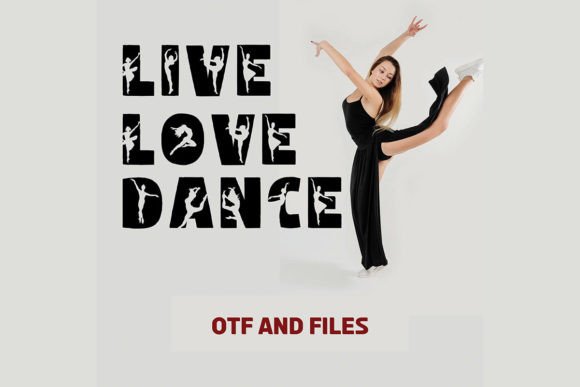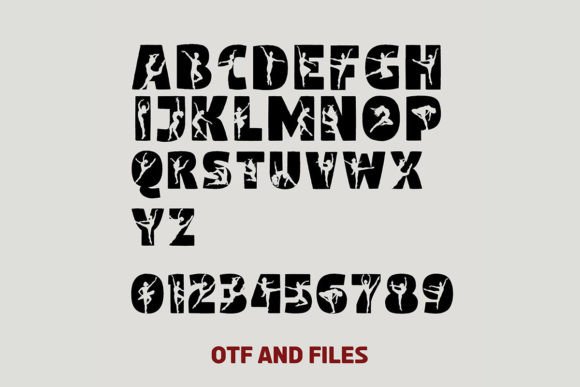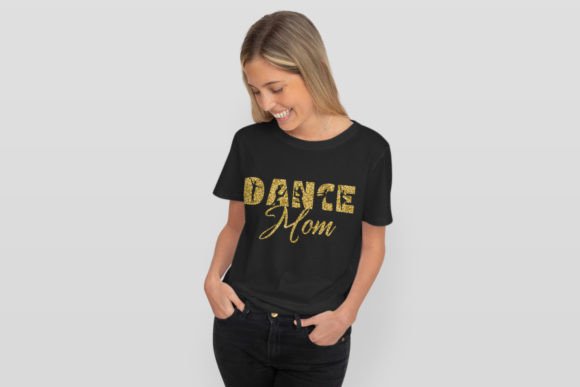
About the Live Love Dance Font
Discover the charm of Live Love Dance Font. This font is a perfect blend of modern aesthetics and classic appeal. Live Love Dance is a delightful and enchanting alphabet font designed exclusively for dancing divas! This playful and vibrant font is perfect for all your dance-related projects, from dance studio logos to party invitations, dancewear branding, and more. This font will add a touch of elegance and movement to your designs, capturing the grace and energy of every dancing girl.
Live Love Dance’s playful energy makes it ideal for headlines, short text blocks on posters or invitations, and branding elements requiring a vibrant, youthful feel. It excels in projects related to dance, fashion, entertainment, and children’s products. However, its decorative nature makes it unsuitable for body text or lengthy paragraphs, as readability suffers. Avoid using it in UI contexts or situations demanding high legibility.
Pairing Live Love Dance with a clean sans-serif like Open Sans for body text provides a strong contrast, balancing its playful energy with clear readability. For a more elegant feel, consider pairing it with a delicate serif font like Lora. Alternatively, a geometric sans-serif like Montserrat can add a modern edge, creating a sophisticated yet energetic combination.
The font’s overall personality is best described as cheerful and energetic, conveying a sense of movement and fun. Its decorative details suit brands targeting a young, active, and expressive audience.